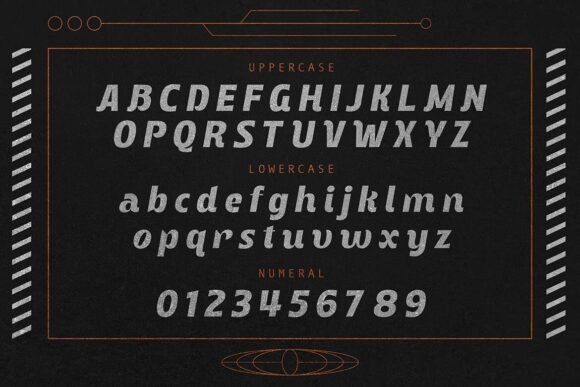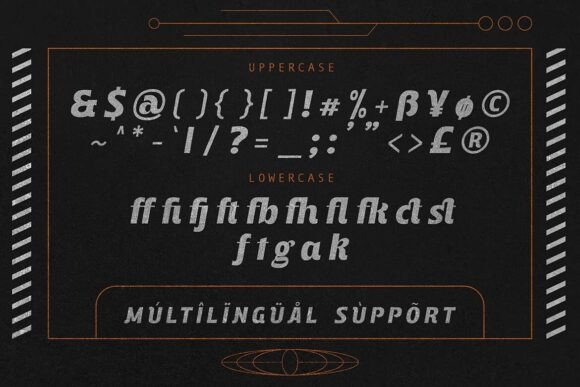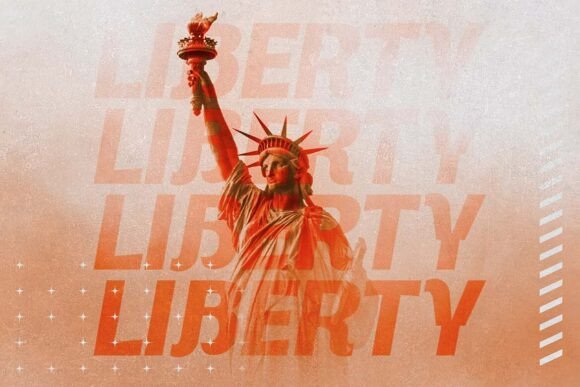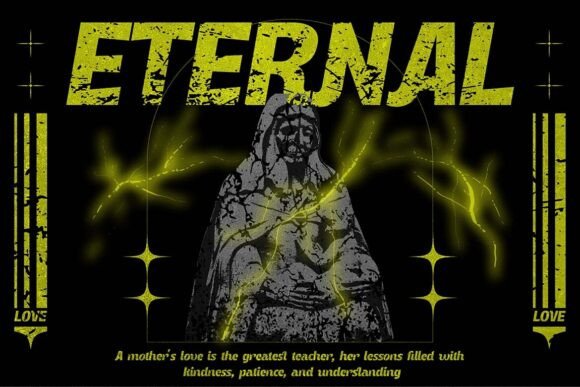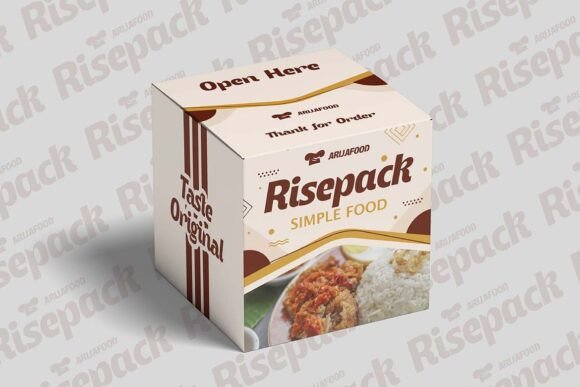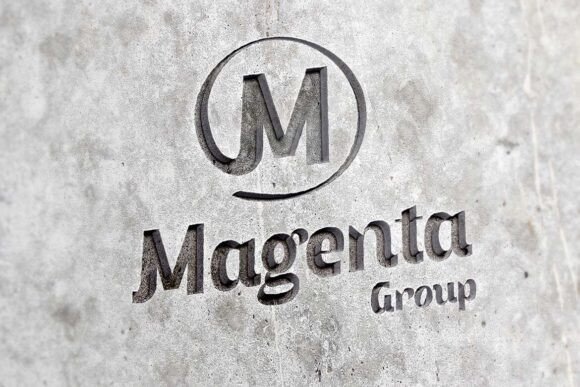
Introduction to Milone Font
You’re in the zone, your creative juices are flowing, and the perfect design element is just out of reach. As a designer, you know how a single font can make or break a project. That’s why discovering the Milone Font can be a game-changer. This chic, italic display font seamlessly fuses dynamism with elegance, making it an ideal choice for fashion branding, snazzy magazine headlines, and arresting posters.
With its sleek style and diagonally slanted characters, the Milone Font conveys a sense of fluid motion and speed, perfect for dynamic digital media. Whether you’re working on a high-quality design project or need a design resource for your next creative venture, this font is sure to impress. Plus, with its modern and sophisticated look, it’s an excellent choice for designers who want to command attention without compromising on style.
Key Features of Milone Font
- High-quality design resource ideal for creative projects, including logos, graphics, and digital art.
- Designed with precision and attention to detail, ensuring a professional and polished look for your creative project.
- Unique characteristics include its modern and sleek design, making it perfect for contemporary branding and design projects.
- Perfect for designers, artists, and creatives looking for a high-quality design resource to elevate their work and take it to the next level.
Honest Review: Milone Font
What works well: ✨ The Milone Font has a clean and modern design that makes it easy to read and visually appealing. It’s also highly customizable, allowing me to adjust the font size, color, and style to suit my needs.
- Wide range of styles and weights available
- Transparent background option for seamless design
However, there are a few limitations: ⚠️ The font doesn’t support all languages, which may be a concern for international projects. Additionally, the font files can be quite large, which may impact page load times.
Overall, I’m impressed with the Milone Font. It’s a high-quality design resource that’s perfect for creative projects. While it may have some limitations, it’s definitely worth considering for your next design project.
Get the most out of Milone Font by using it in combination with other design elements, such as images and shapes. Use it to create eye-catching headings, titles, and logos. Milone Font is perfect for designers, writers, and creatives looking for a high-quality, free design resource.
Compared to Milone Font, Open Sans has a more modern and minimalist design, making it perfect for contemporary creative projects. However, Milone Font offers a more elegant and refined look, making it suitable for high-end design resources.
Compared to Milone Font, Lato has a more modern and sleek design, making it perfect for creative projects that require a contemporary look. However, Milone Font offers a more refined and elegant look, making it suitable for high-end design resources.